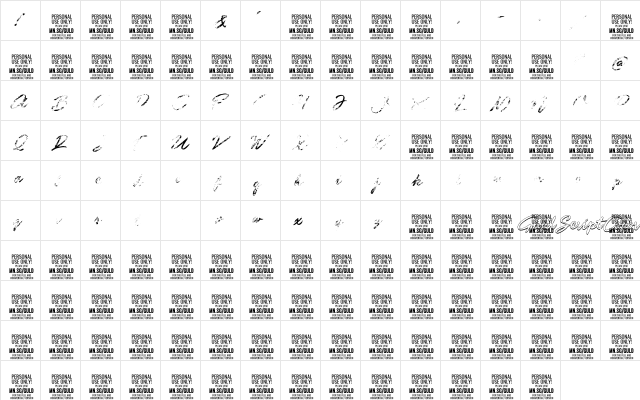
Guld Script Color PERSONAL Regular Font Preview
Guld Script Color PERSONAL Regular
Guld Script Color PERSONAL Regular Font Details
Design Context for Guld Script Color PERSONAL Typeface
Guld Script Color PERSONAL flows with the natural rhythm of handwritten lettering, making it ideal for designs that call for warmth and personal expression.